Beasts of England
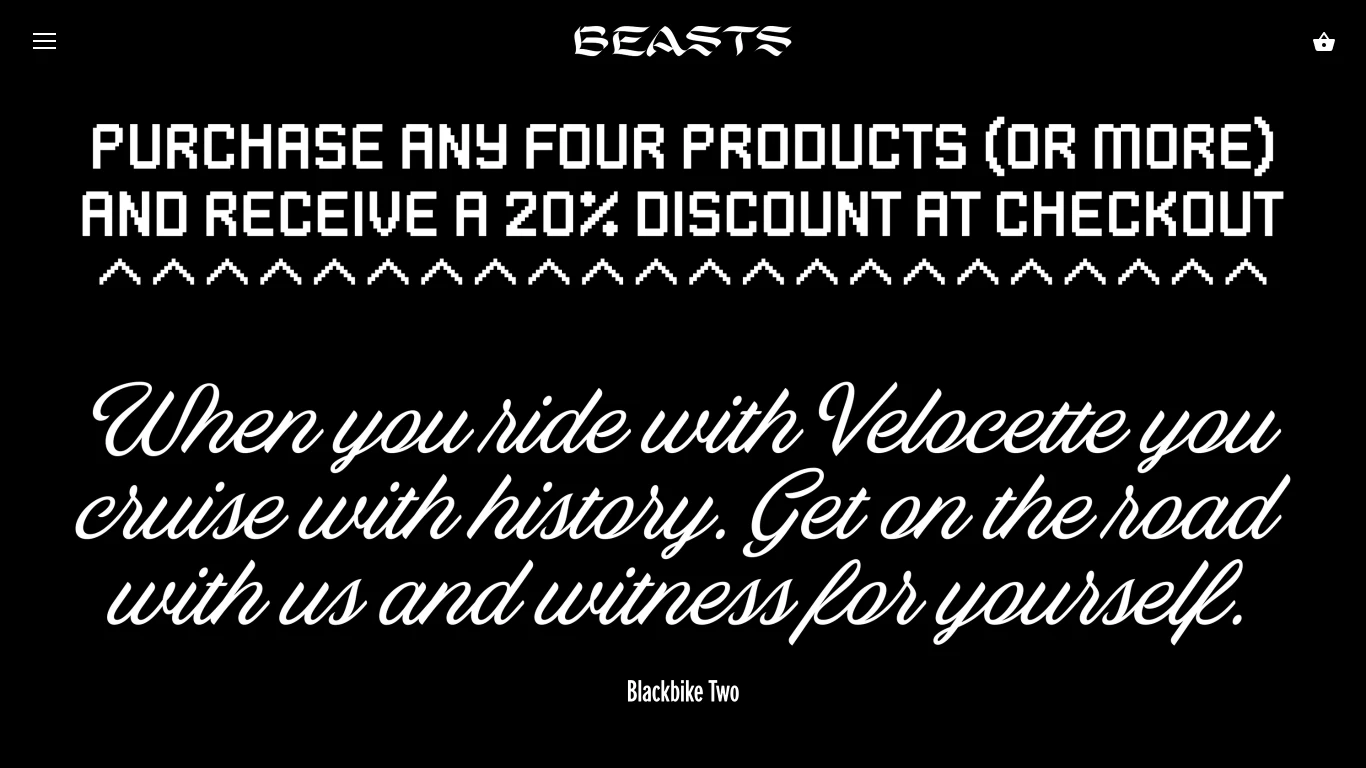
1988
Beasts of England is a type foundry and design studio founded by Simon Walker, specializing in creating typefaces inspired by personal narratives and cultural memories. Notable typefaces include Niven, a recent release available on their website. Their work often reflects early experiences and stories, blending traditional design elements with contemporary aesthetics.